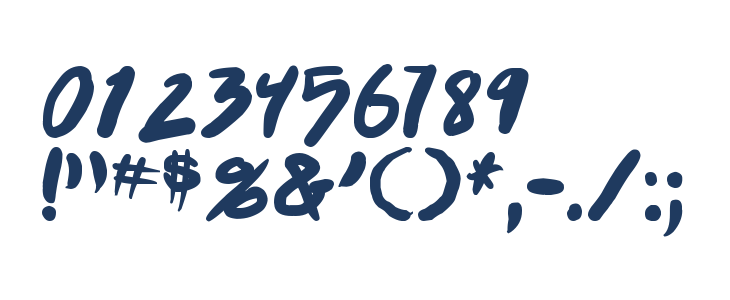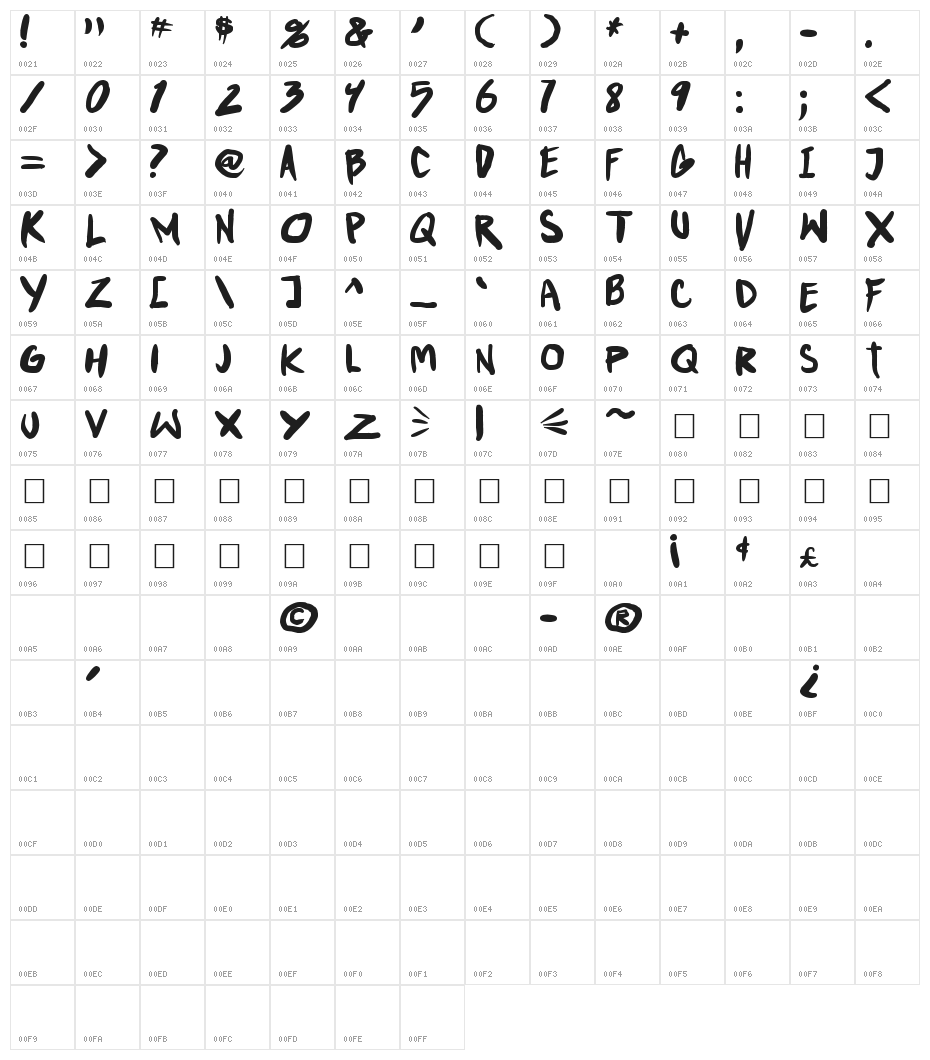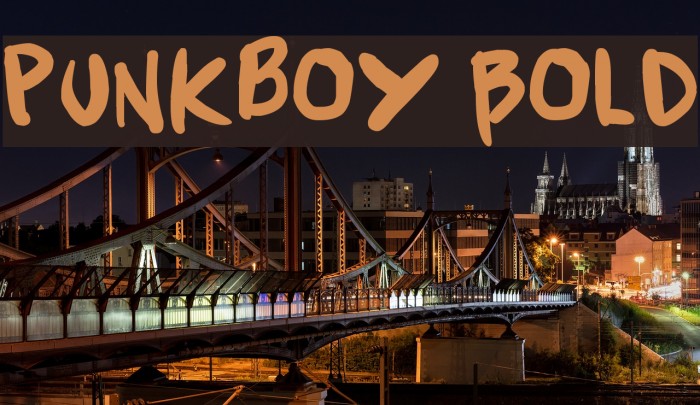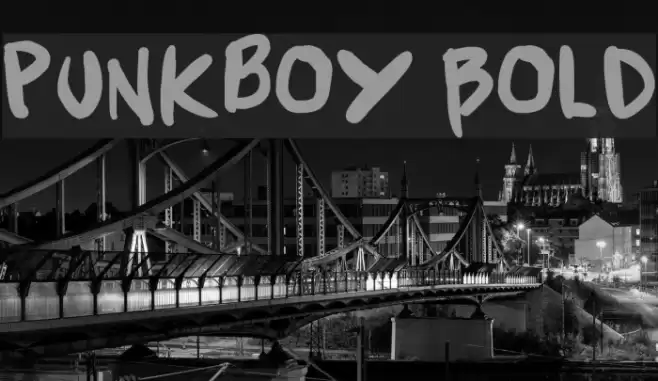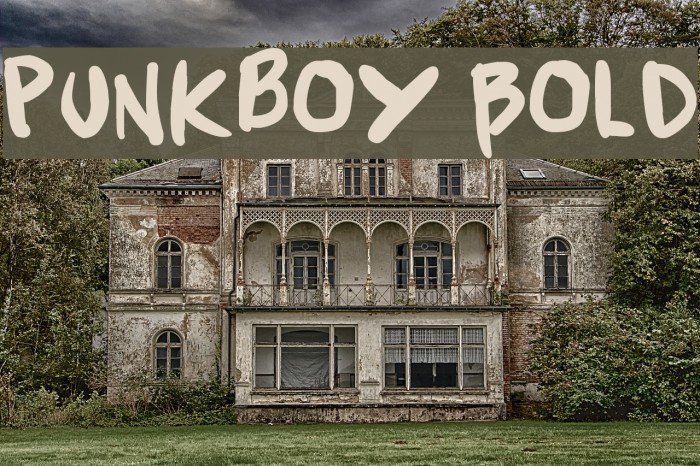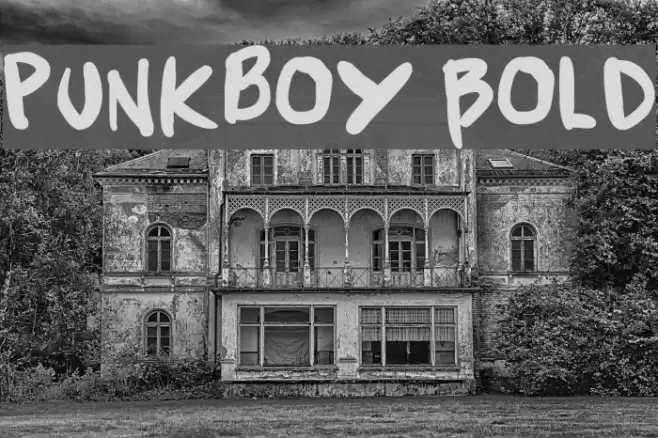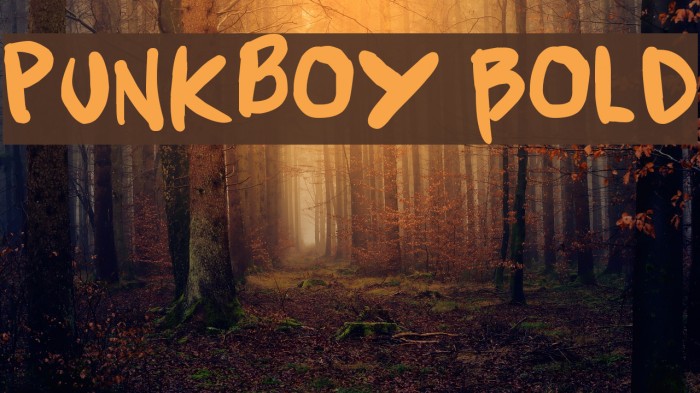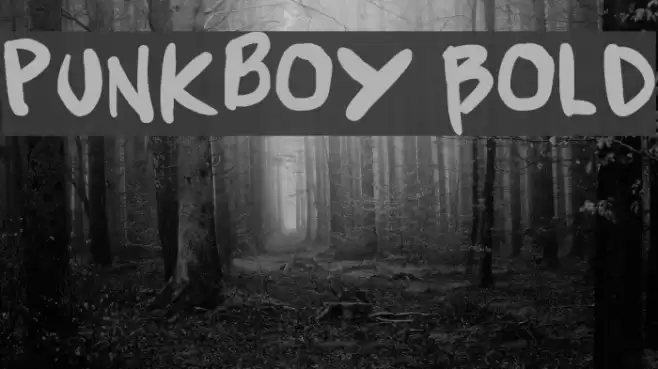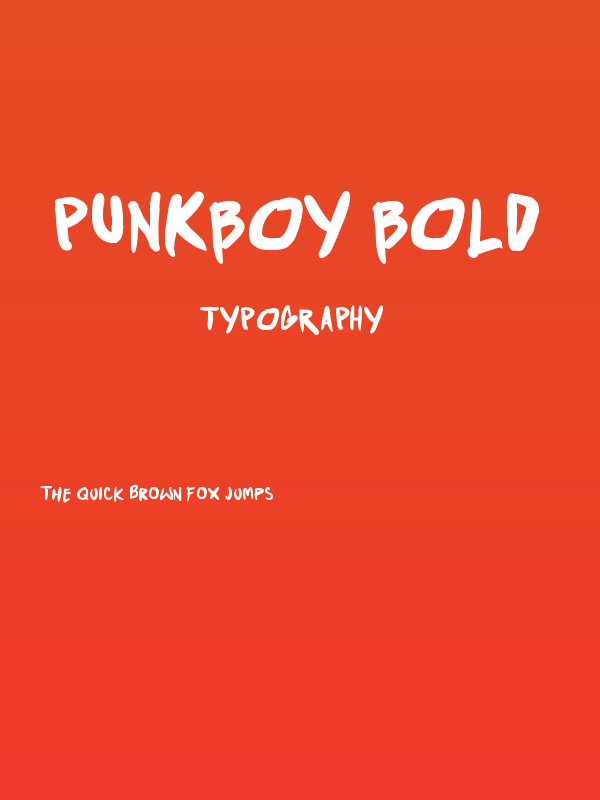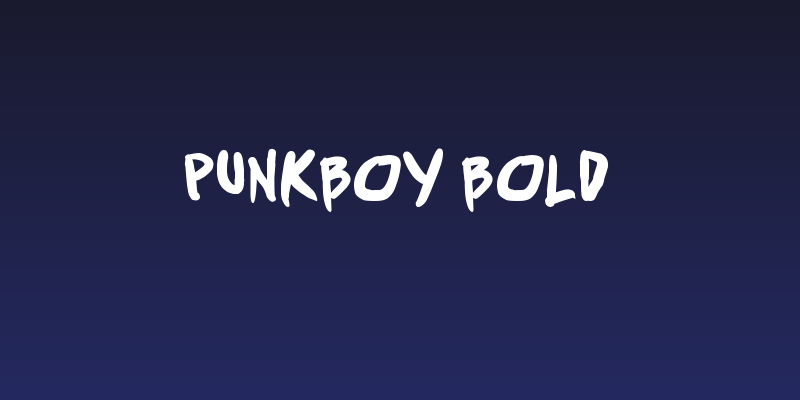
Punkboy Bold Font
Punkboy Bold Description
This font exudes a bold and rebellious spirit, characterized by its thick, uneven strokes and energetic, hand-drawn appearance. The letters are slightly irregular, giving it a dynamic and informal feel, perfect for capturing attention. The uppercase and lowercase letters maintain a consistent style, with a playful yet assertive look. Numbers and special characters follow the same bold and expressive design, making it versatile for various creative applications. Its unique style is reminiscent of street art and punk aesthetics, making it ideal for projects that require a strong, unconventional visual impact.
| Proposed Projects | Ideal for album covers, posters, streetwear branding, and edgy graphic designs. |